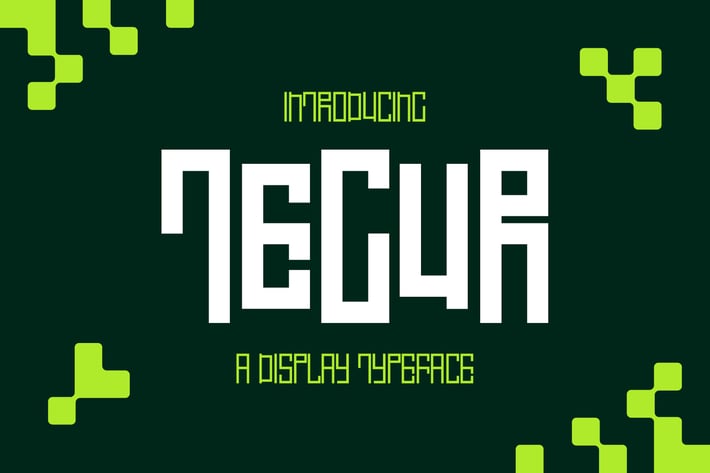
Tegur Futuristic Display Typeface - ZD
Tegur – Futuristic Display Typeface
Tegur is a modern and futuristic display typeface designed with sharp, geometric forms. This font is perfect for tech-inspired designs, gaming interfaces, and digital branding. Tegur comes in two weights: Thin and Regular, providing flexibility for various creative projects. Additionally, it includes small caps, allowing for even more typographic versatility. Whether you're working on posters, UI designs, or sci-fi-themed visuals, Tegur is the perfect choice for bold and striking typography.
- Thin and Reguler
- Small Caps for unique typographic options
- Geometric and futuristic aesthetic
- Ideal for tech, gaming, UI, branding, and editorial projects